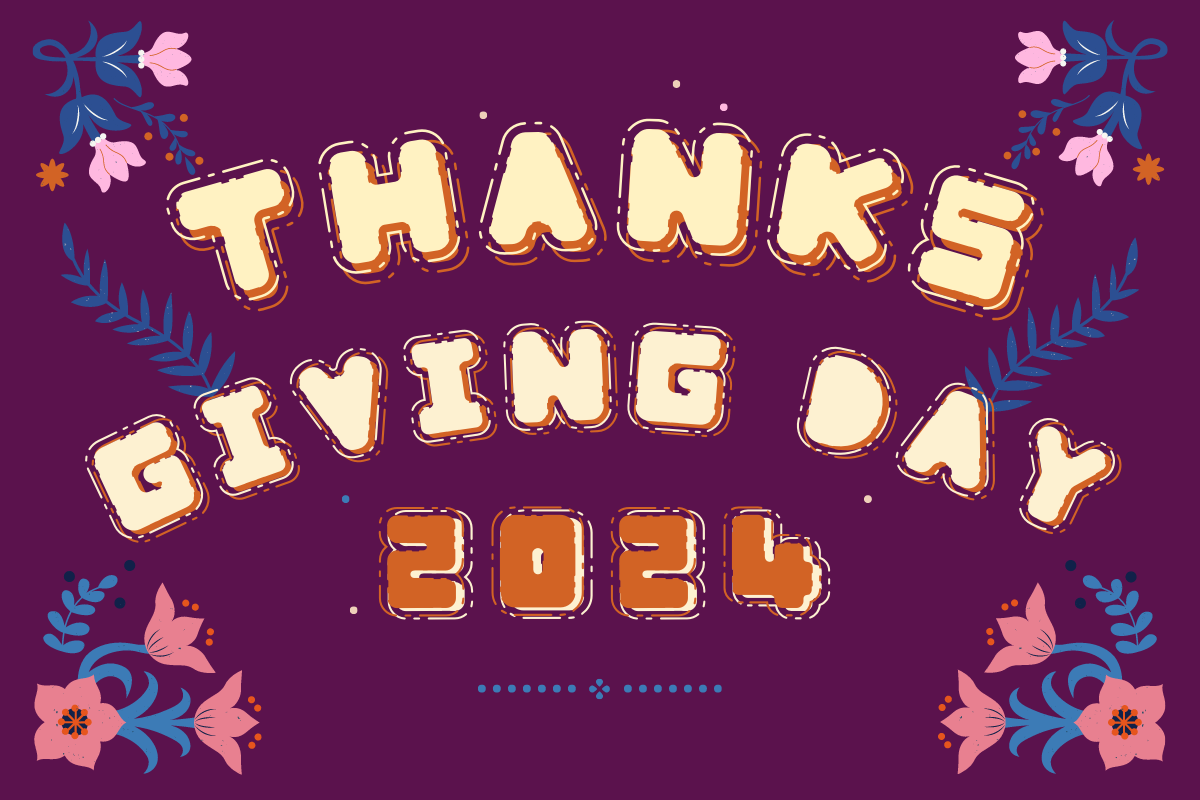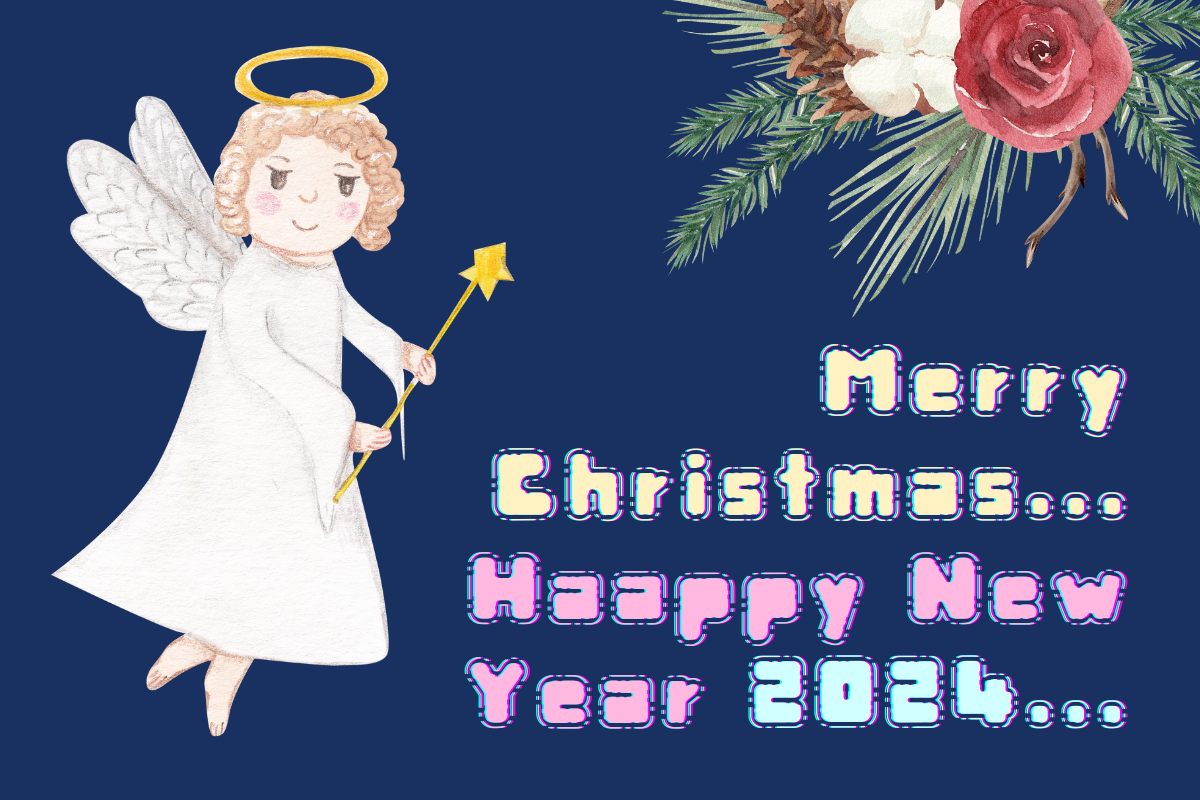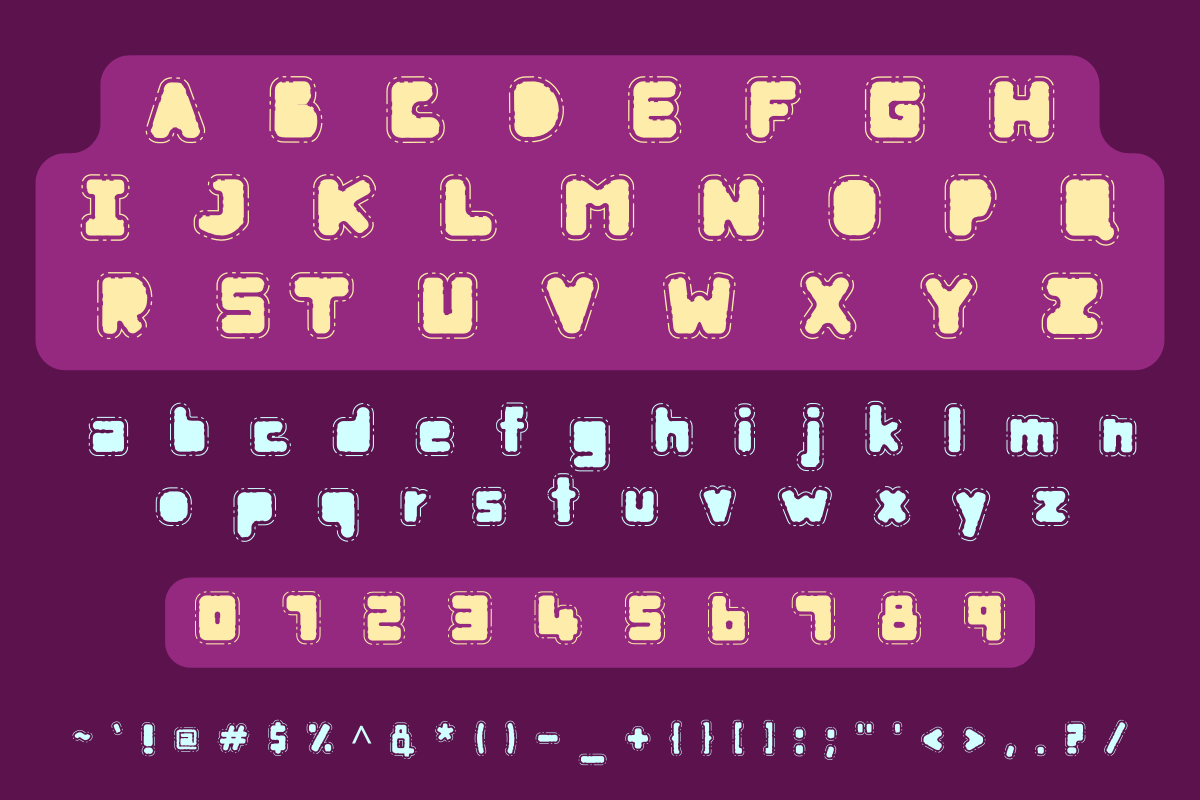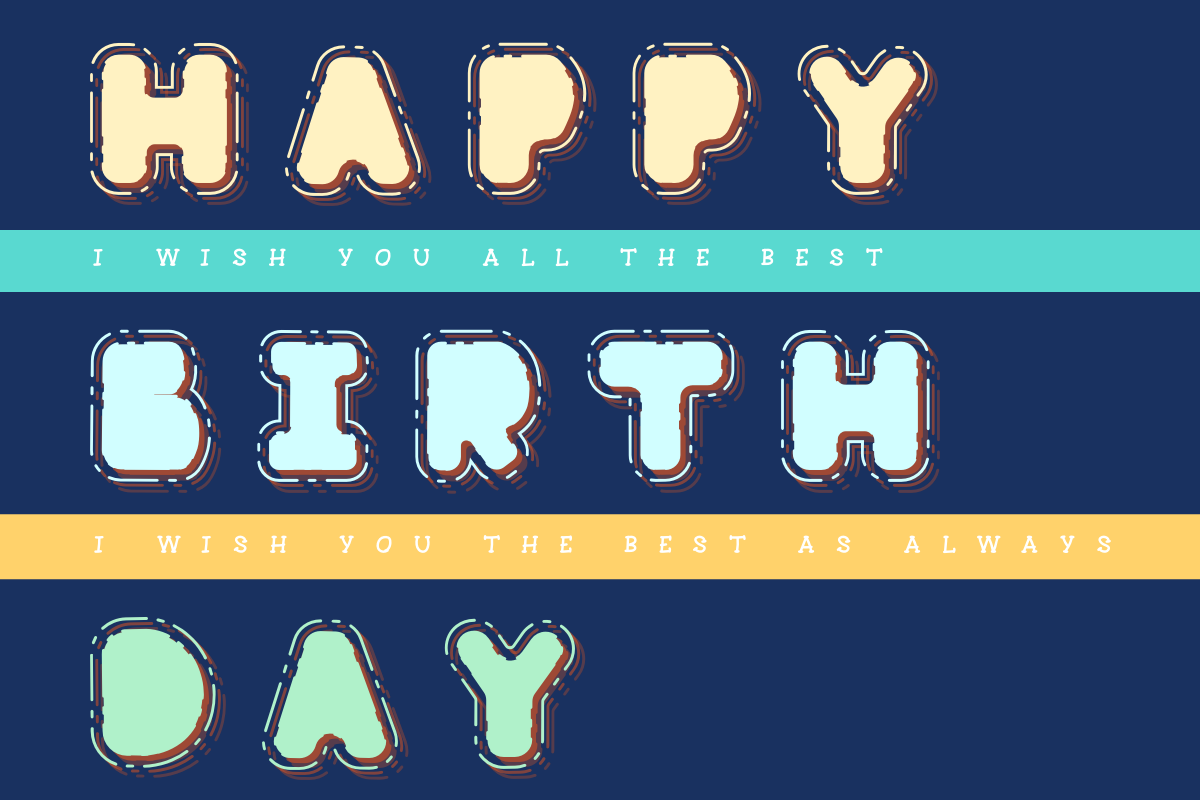
Abonner
Abonner : A handwritten font this is are cute and bright. Very suitable for any design purpose like festival, magazines, packaging, branding, posters, greeting cards, letterhead, and many more other creative project.